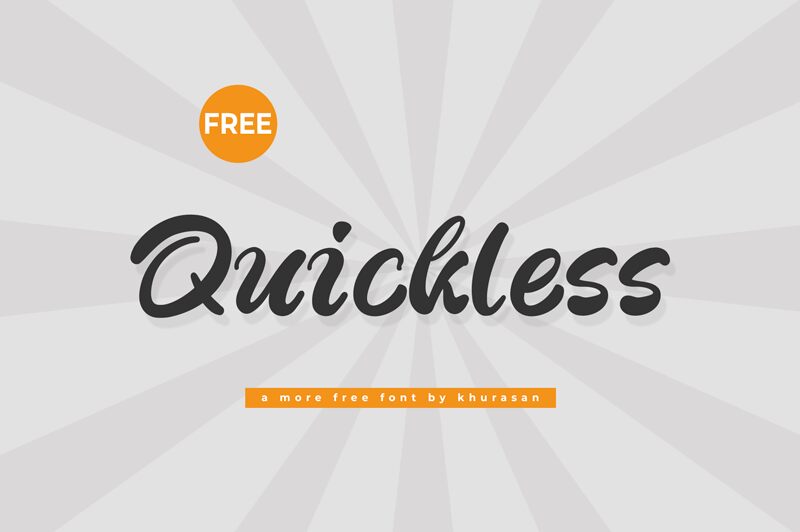
Quickless
Quickless font designed by Khurasan is an elegant and expressive brush script font with a bold appearance. It combines modern aesthetics with a flowing, cursive form creating a stylish outcome. The font letters are slightly irregular which adds an inviting tone to the visual effect. Its simplicity is refreshing; additionally, it doesn’t need any extra enhancements to look fabulous.
Wherever your project lies, use this free handwritten font for branding designs, business cards, online ads, and posters. It will prove suitable in promotional banners for sales notices and discount information as well as blog post titles!